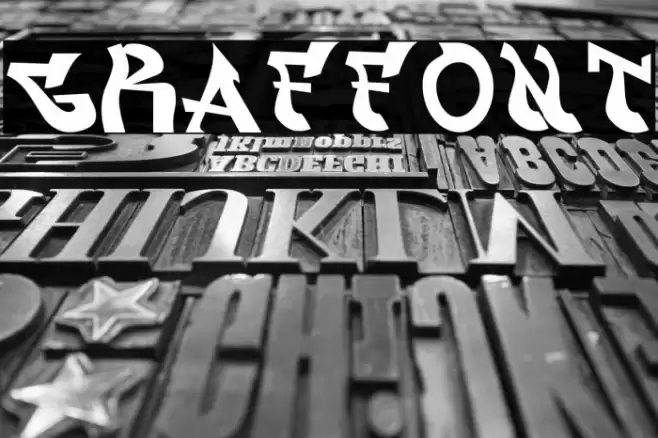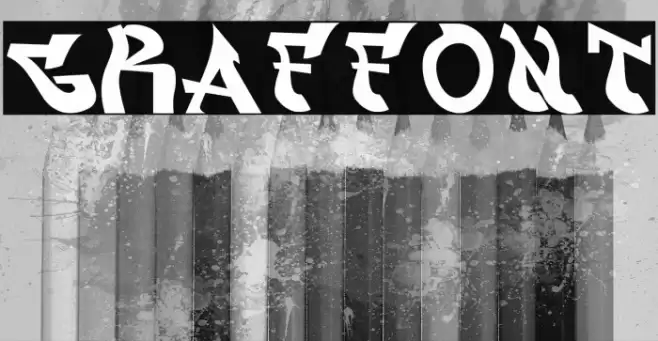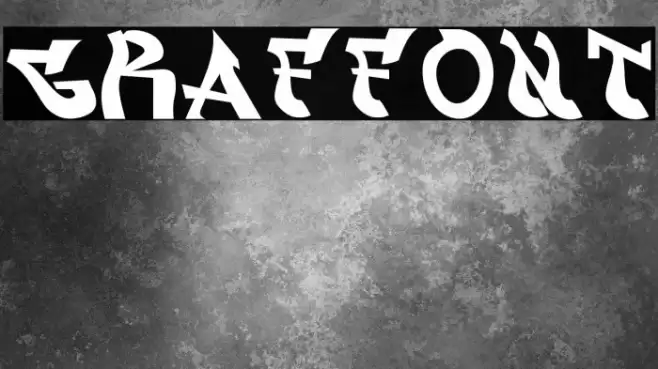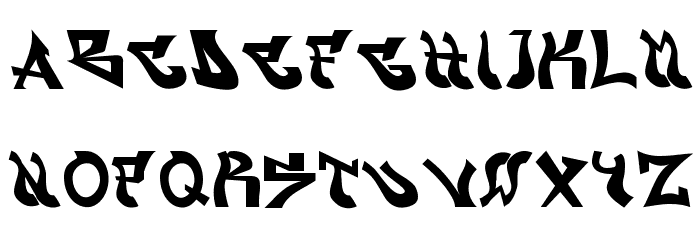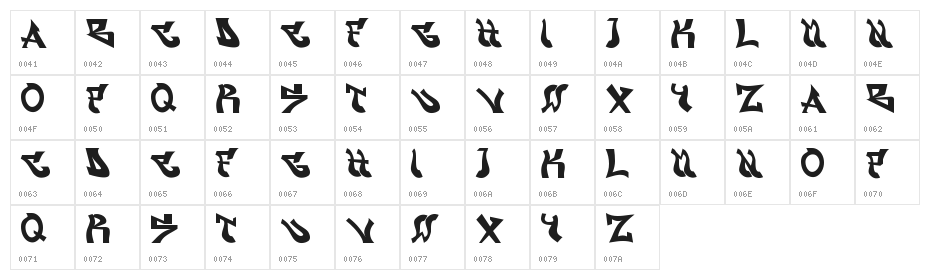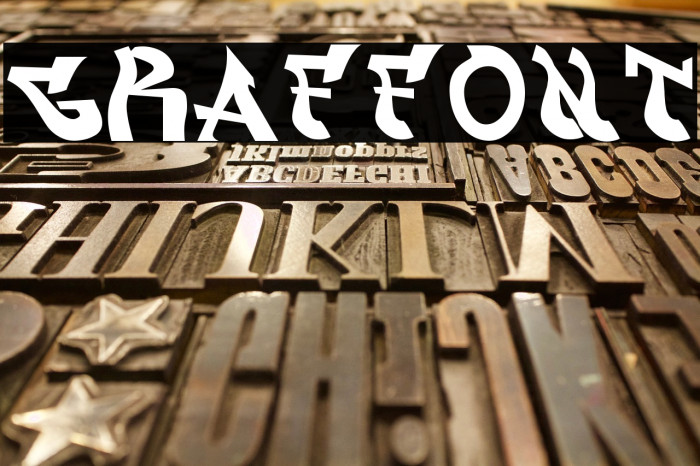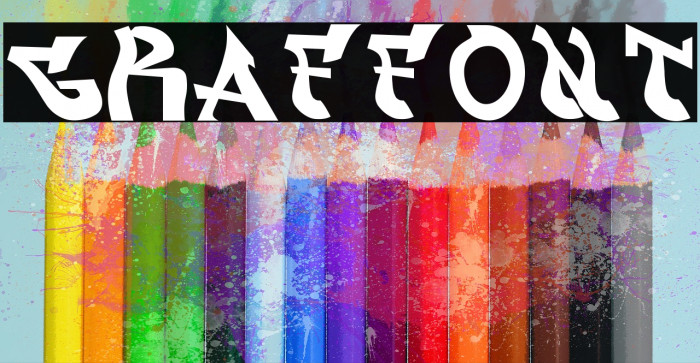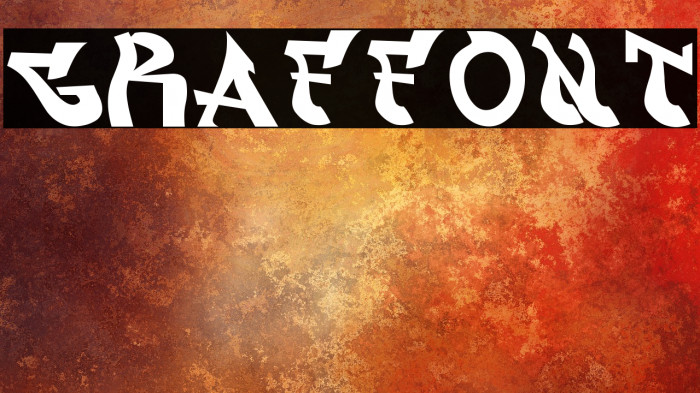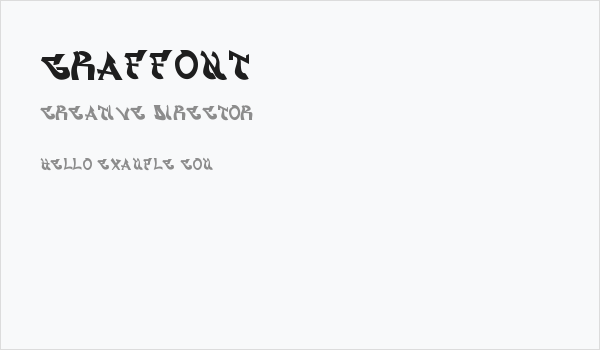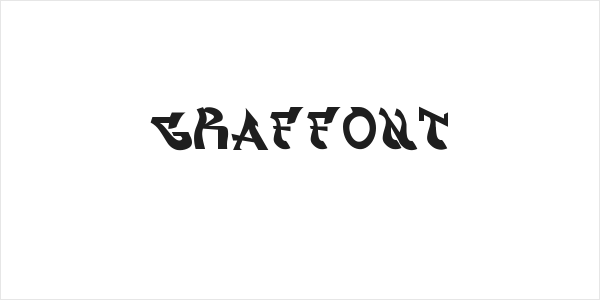
graffont Font
graffont Description
This font features a bold, graffiti-inspired style with sharp angles and dynamic curves. The characters are highly stylized, with a strong emphasis on individuality and artistic flair. The uppercase letters are particularly striking, with exaggerated forms that convey a sense of movement and energy. The lowercase letters maintain the same edgy aesthetic, ensuring consistency throughout the typeface. Numbers and special characters are equally bold, making them stand out in any design. This font is perfect for projects that require a rebellious or urban feel, such as street art, music album covers, or edgy branding.
A bold, graffiti-inspired font with sharp angles and dynamic curves from Uncategorized fonts.
- Proposed Projects: Ideal for street art, music album covers, edgy branding, and urban-themed designs.
- Overall Style: Modern, Urban